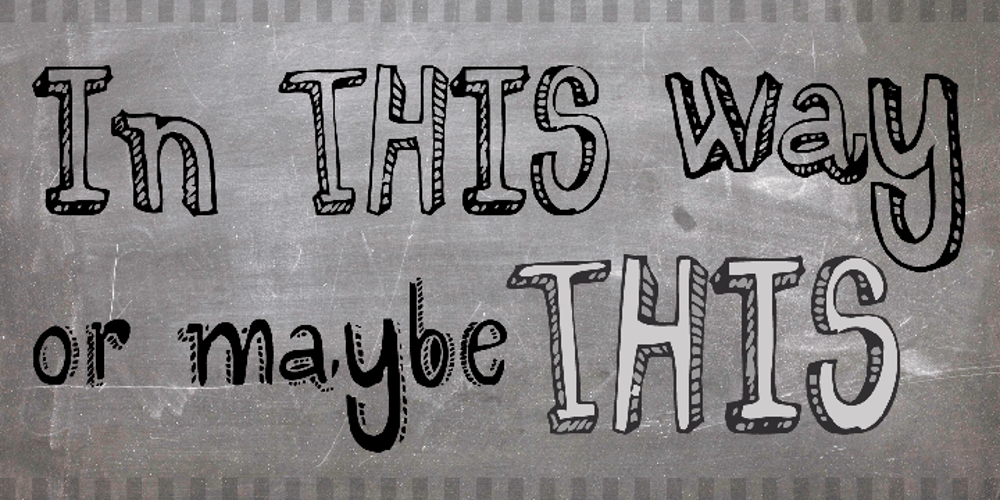
Too Sweet To Eat Font Family was designed by published by Cuda Wianki. Too Sweet To Eat contains 4 styles and family package options. Too Sweet To Eat is a hand-drawn font that has many variations because you can choose from simple outline version, only shadow version, normal version and filling version. If You put one on another then you have a great possibility to apply different colors on different layers! That makes your letters multicolor! Great stuff for decorative writings, posters, informal stationery! SPECIFICATION: alternate characters for all numbers and letters, nearly 400 kerning pairs, multi-language coverage, ornaments.